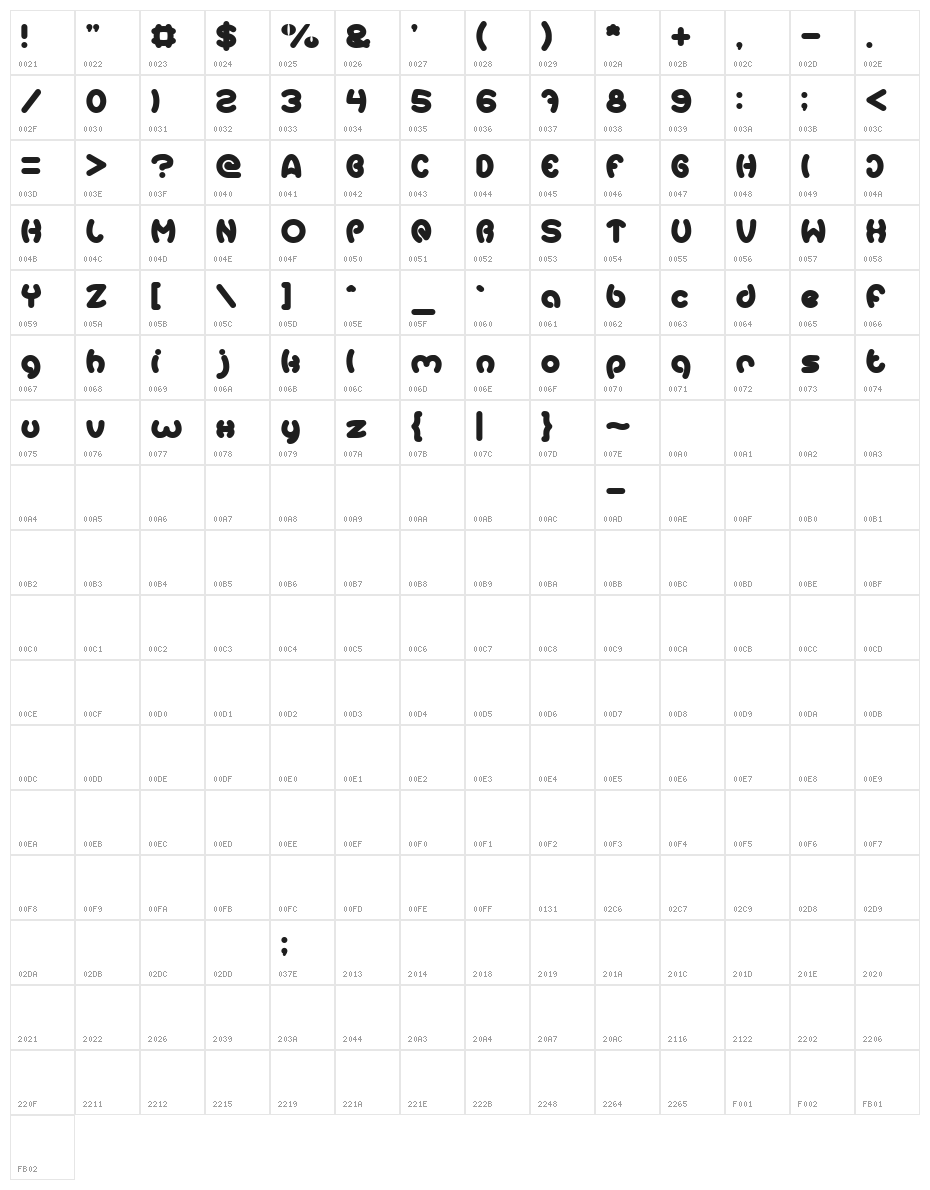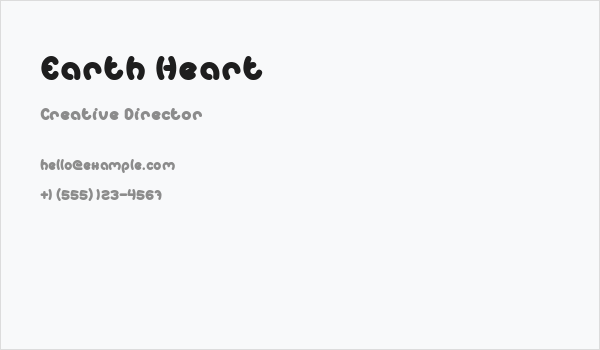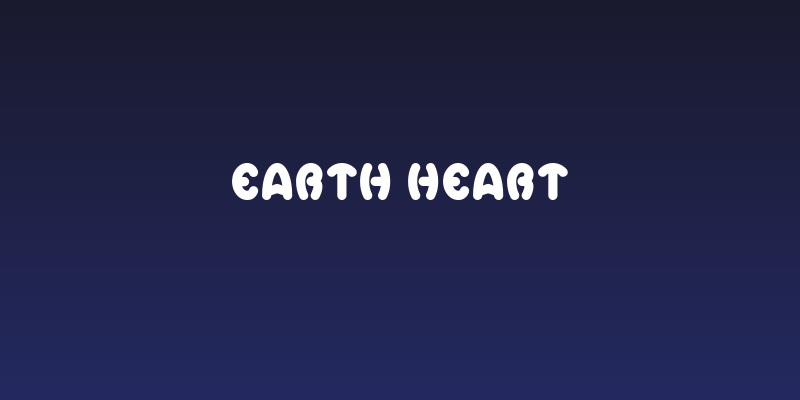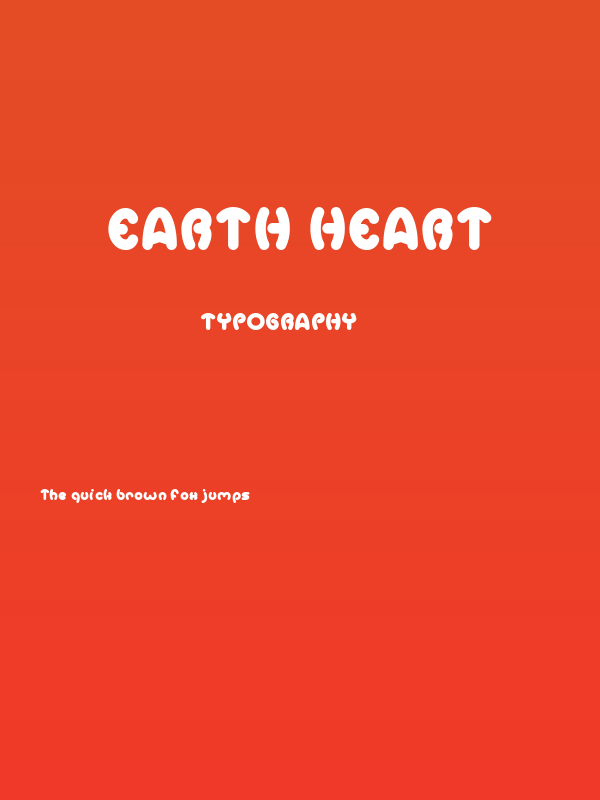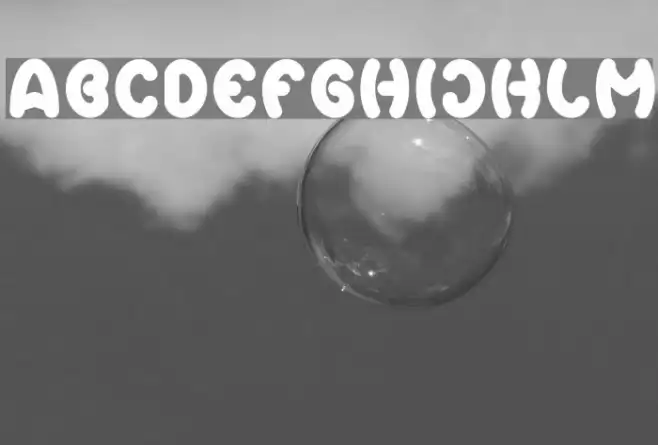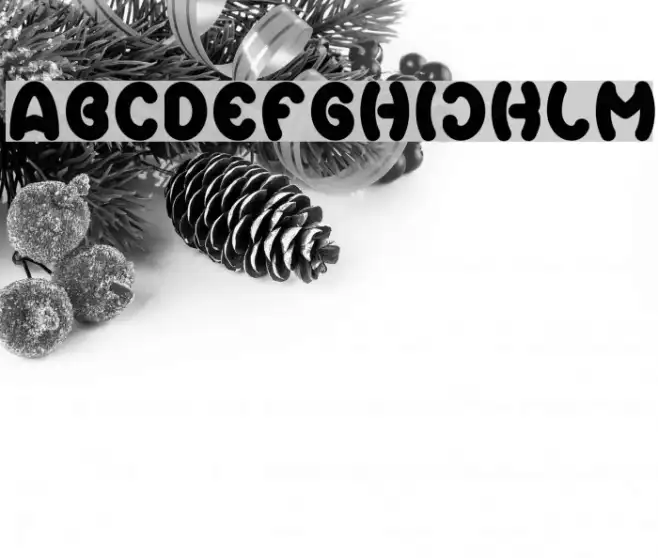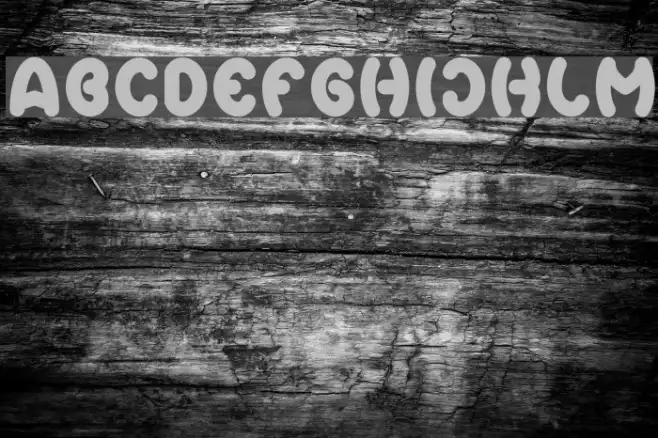
Earth Heart Font
Earth Heart Description
This playful and bold font features rounded, bubble-like characters that convey a sense of fun and whimsy. The letters are thick and have a consistent stroke width, giving them a uniform appearance. The rounded edges and soft curves create a friendly and approachable feel, making it ideal for designs that aim to be inviting and cheerful. The font includes both uppercase and lowercase letters, numbers, and a variety of special characters, ensuring versatility in its application. Its unique style makes it stand out, perfect for projects that require a touch of creativity and playfulness.
EARTH-HEART UPPERCASE
EARTH-HEART LOWERCASE
EARTH-HEART OTHER CHARS
| Overall Style | Playful, Fun |